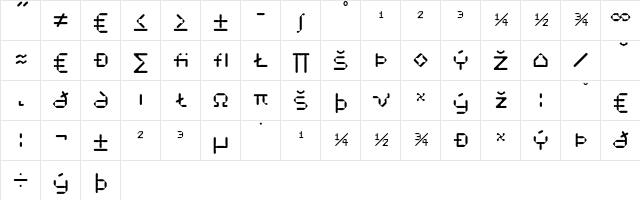
Koko OneExpert Font Preview
Koko OneExpert
Design Context for Koko Typeface
Koko takes a measured approach to typography — its balanced proportions and neutral character make it a reliable workhorse for both digital and print work.